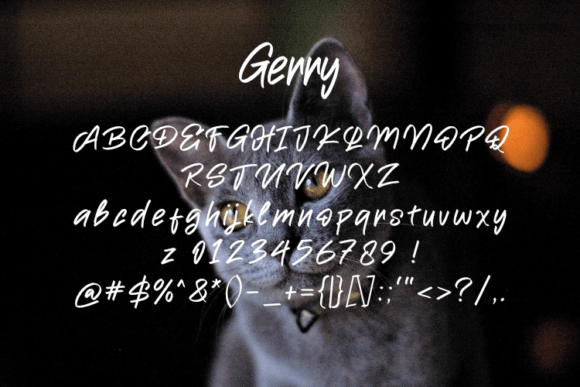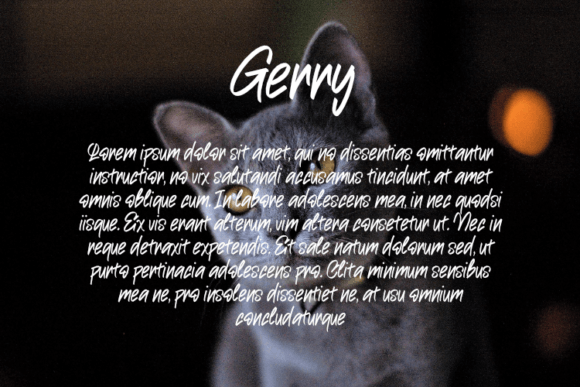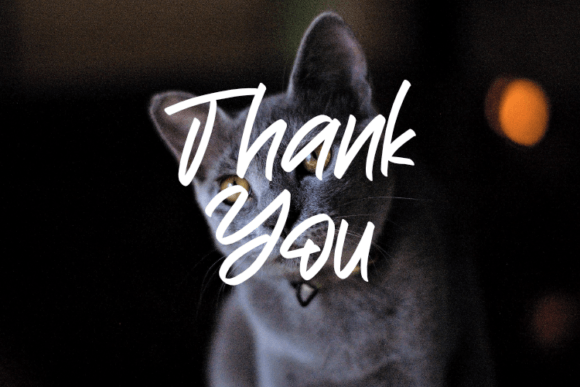
Unveiling Gerry: The Ultimate Font for Elevating Your Designs
In the world of design, typography plays a crucial role in conveying the message and aesthetic of a brand or product. With the vast array of fonts available, finding the perfect one that embodies versatility, elegance, and sophistication can be a daunting task. However, we are excited to introduce Gerry, a meticulously crafted font designed to adorn clothing, t-shirts, and a multitude of other product designs. Gerry is not just a font; it’s a tool that can elevate your designs to new heights of creativity and professionalism.
The Versatility of Gerry
One of the standout features of Gerry is its universal adaptability. Whether you’re working on a fashion project, a branding campaign, or a digital platform, Gerry flawlessly integrates into all design types. Its unique typography is carefully designed to complement a wide range of products, from casual wear like t-shirts to more formal attire. This versatility makes Gerry an indispensable asset for designers and crafters who work on diverse projects.
Igniting Creativity with Gerry
What sets Gerry apart from many fonts available in the market is its ability to ignite creativity. The font’s unique typography is designed to inspire and offer a fresh perspective to designers and crafters. With Gerry, you can experiment with various design ideas, from minimalist concepts to more elaborate and decorative themes. Its elegance and sophistication make it an ideal choice for projects that require a touch of class and refinement.
Elevate Your Designs
Gerry is more than just a font; it’s a design solution that can elevate your projects to new levels of elegance and sophistication. Whether you’re looking to create stunning apparel, eye-catching posters, or engaging digital content, Gerry provides the typographic excellence needed to make your designs stand out. Its versatility, compatibility, and unique style make it a valuable addition to any designer’s toolkit.
In conclusion, Gerry is a versatile and sophisticated font designed to meet the needs of designers and crafters across various industries. Its universal adaptability, seamless compatibility with all software systems, and easy-to-use file formats make it an ideal choice for a wide range of design projects. With Gerry, you can unlock new levels of creativity and professionalism, elevating your designs to rescale the heights of elegance and sophistication. Whether you’re a seasoned designer or a crafting enthusiast, Gerry is poised to become your go-to font for all your design needs.
Discover the potential of Gerry today and transform your designs with its unique typography and unparalleled versatility.